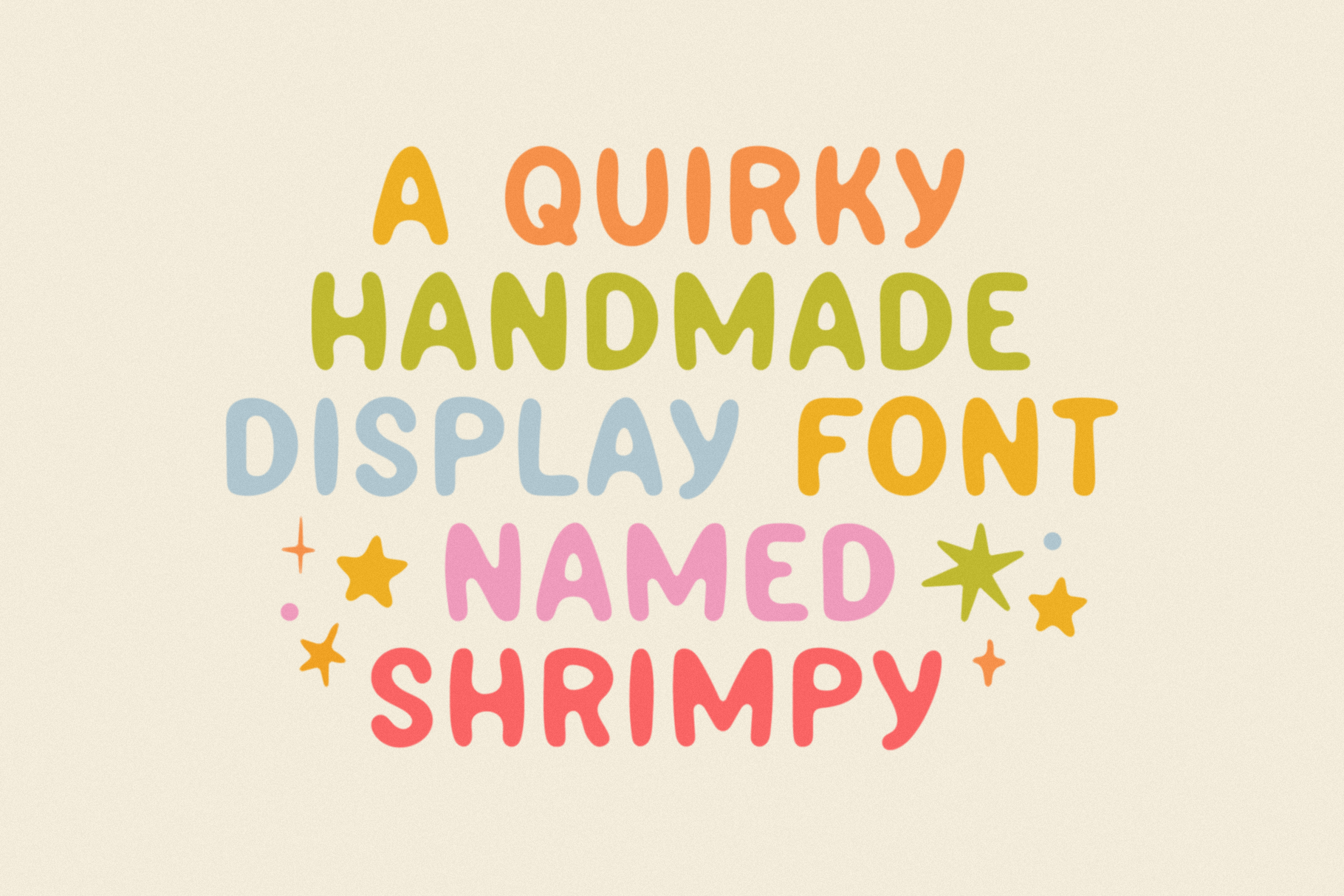
Shrimpy: Font + Graphics
SHRIMPY 2.0 – A quirky display typeface and colorful graphics, with language support. Proudly made by Bruised Goods in Fort Lauderdale, Florida.
- 146 Glyphs Total: All Uppercase, Numbers, Symbols, Punctuation.